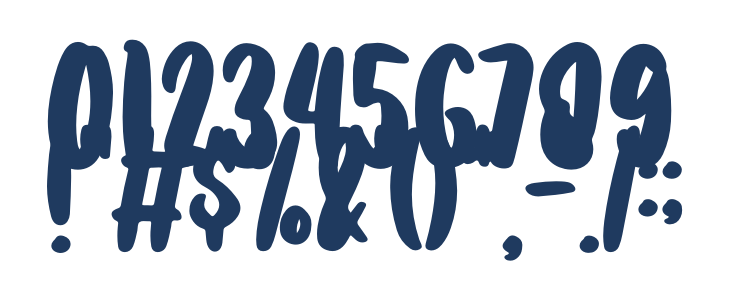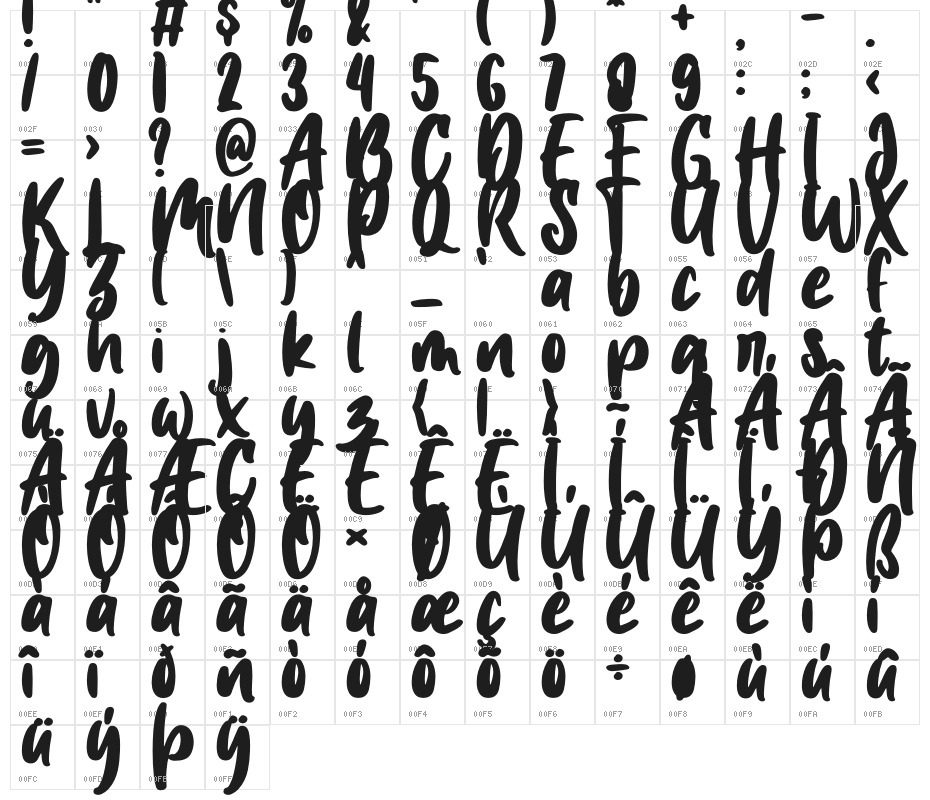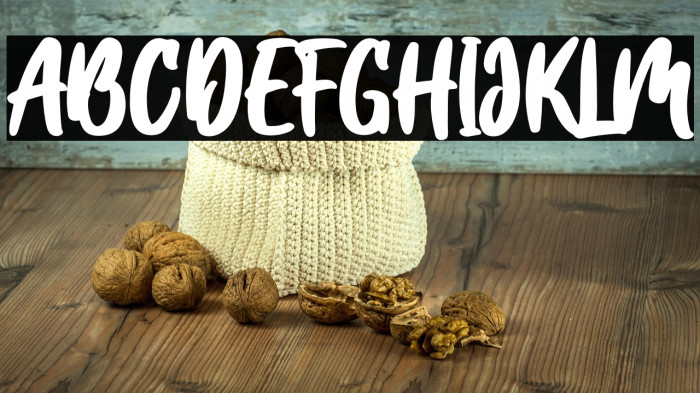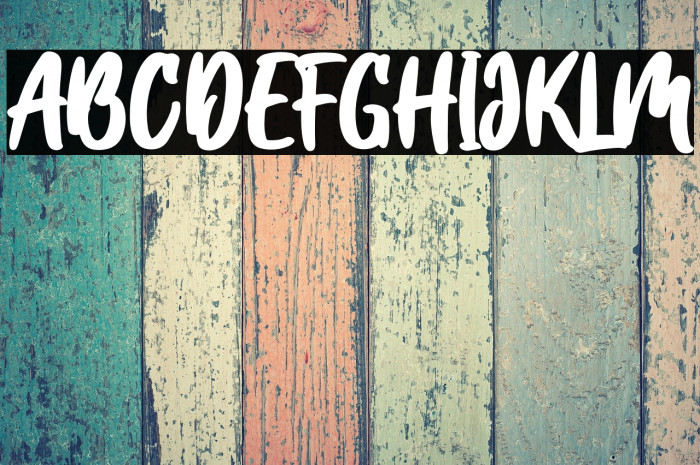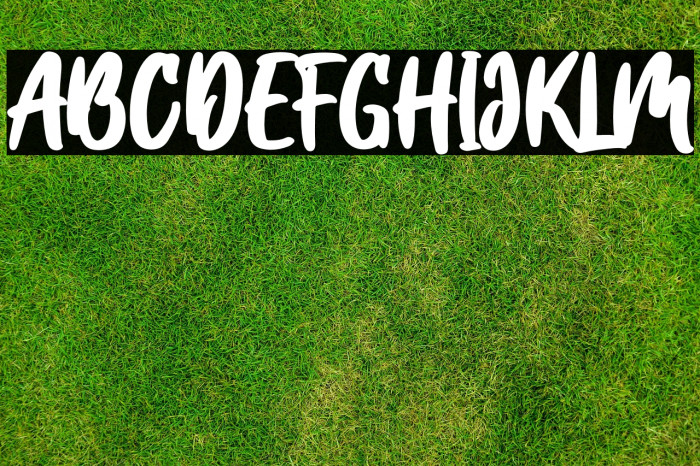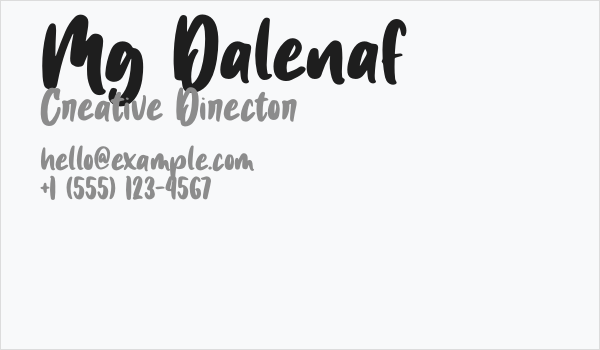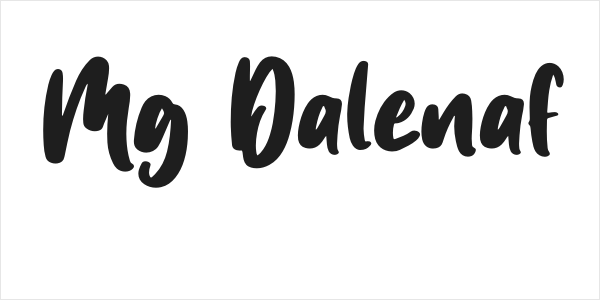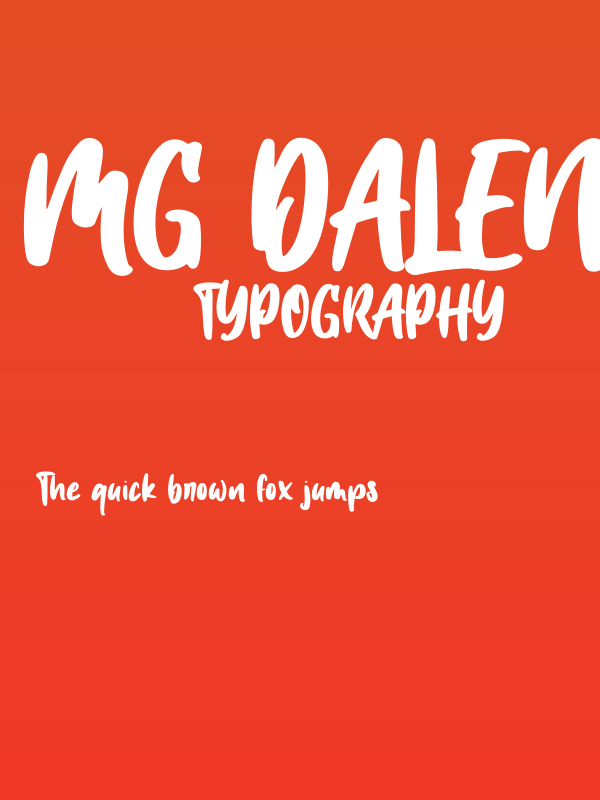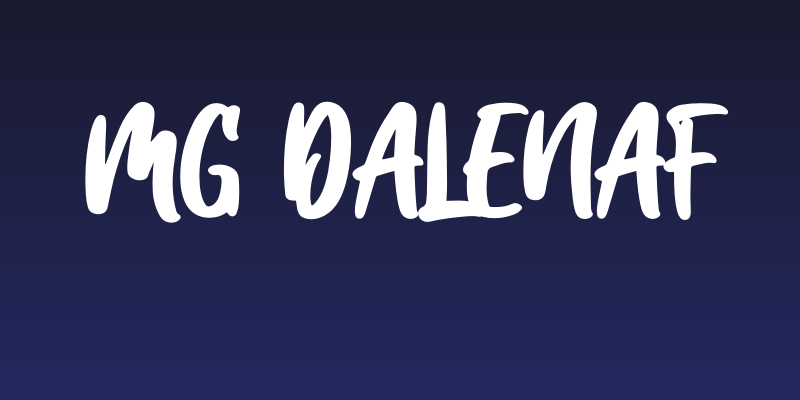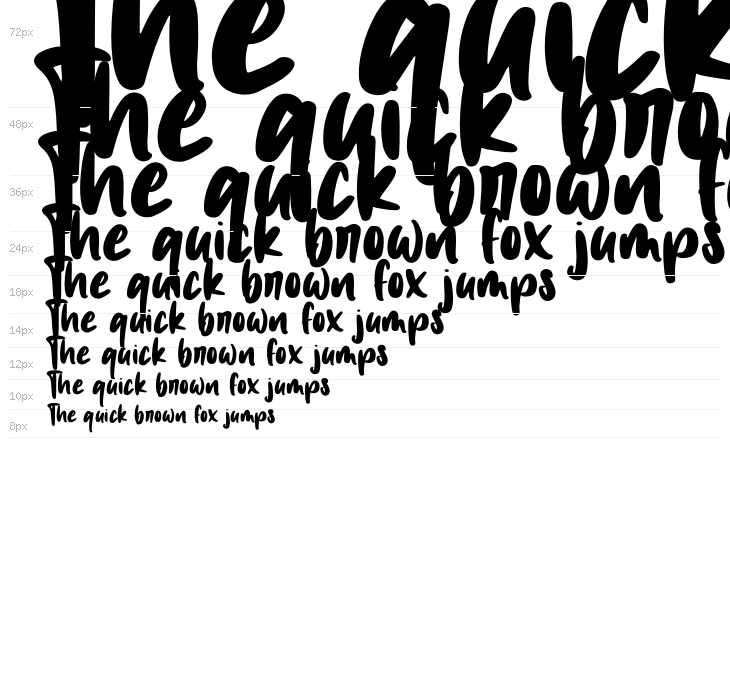
Mg Dalenaf Font
Mg Dalenaf Description
This font features a bold, expressive style with a handwritten aesthetic. The letters are thick and rounded, giving a playful and dynamic appearance. The uppercase and lowercase characters maintain a consistent flow, with some letters extending slightly beyond the baseline, adding to the casual and informal feel. The numbers and special characters are equally bold, ensuring they stand out. This font is ideal for projects that require a personal touch, such as invitations, greeting cards, or branding materials that aim to convey warmth and approachability.
| Proposed Projects | Ideal for invitations, greeting cards, branding materials, and any project needing a personal touch. |